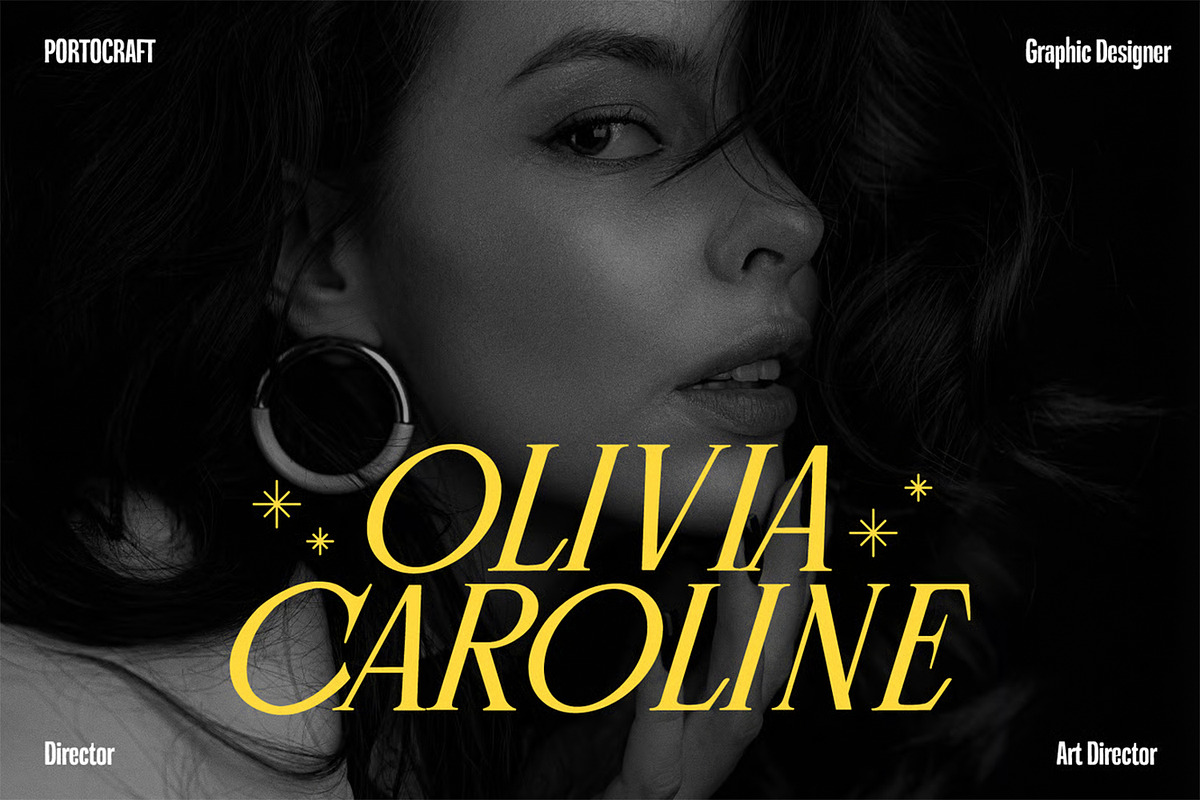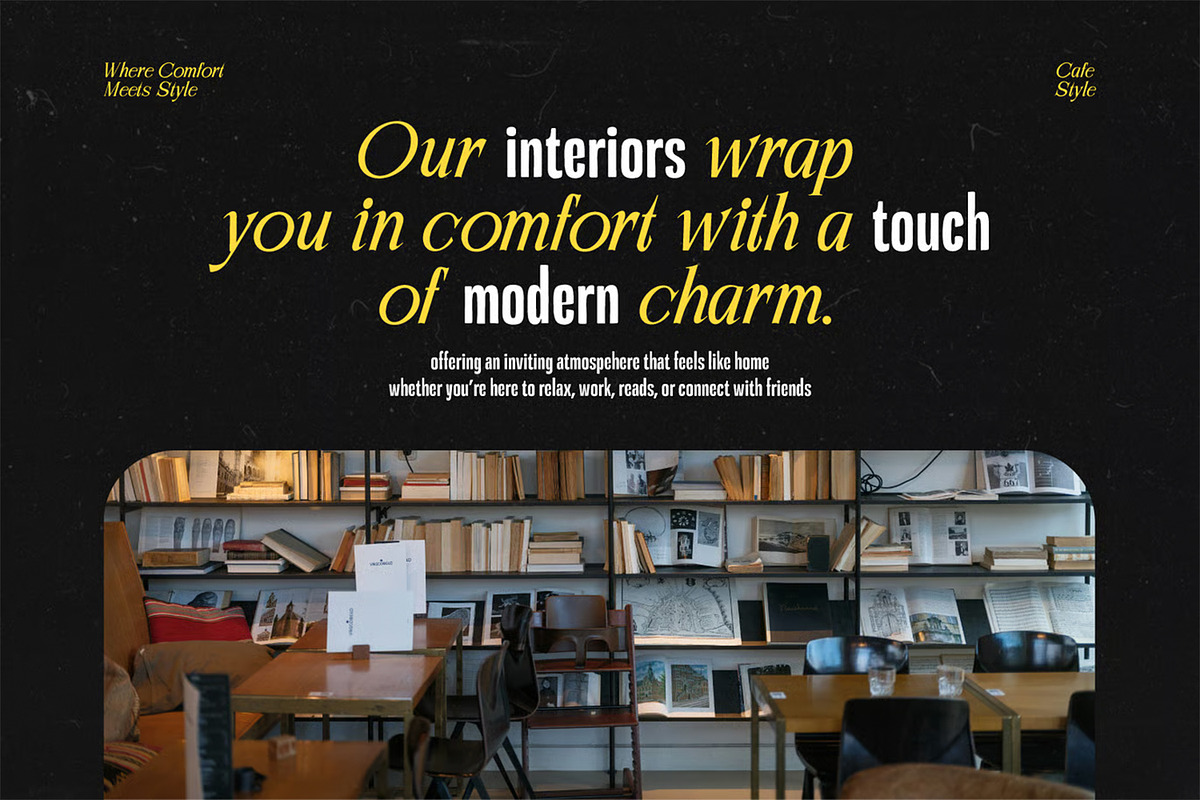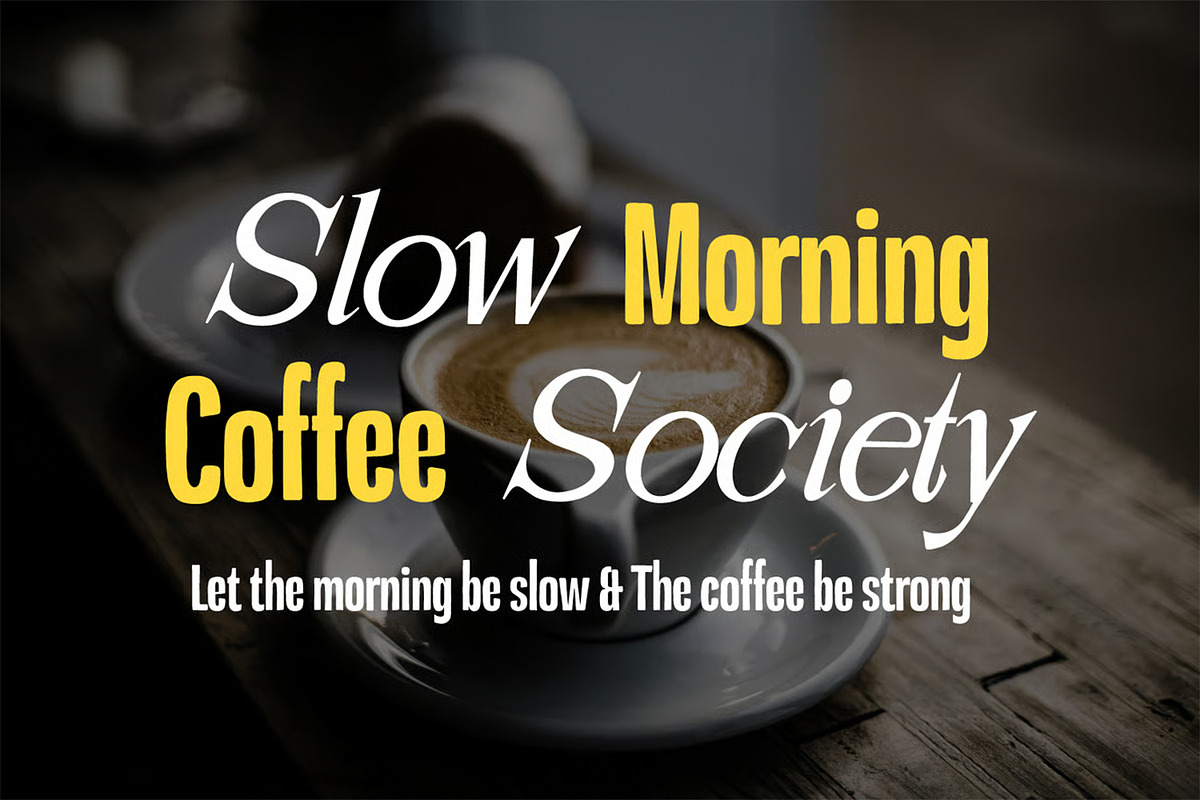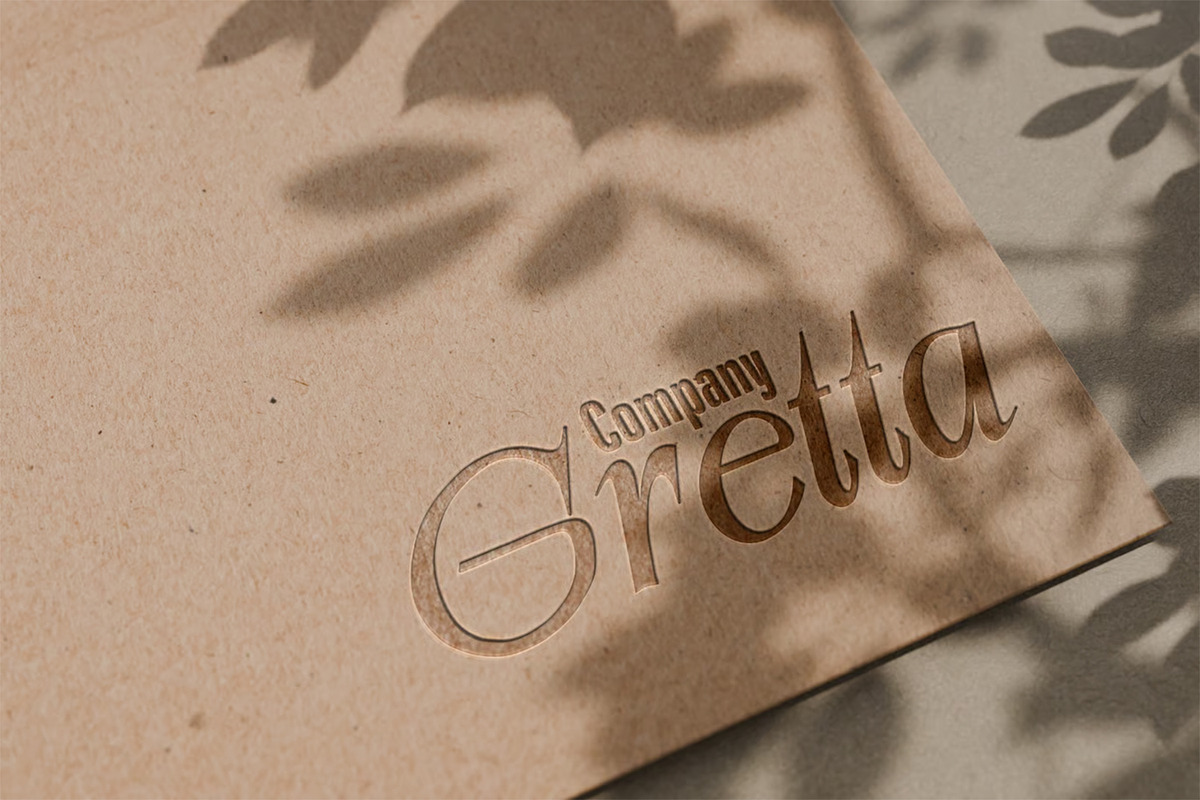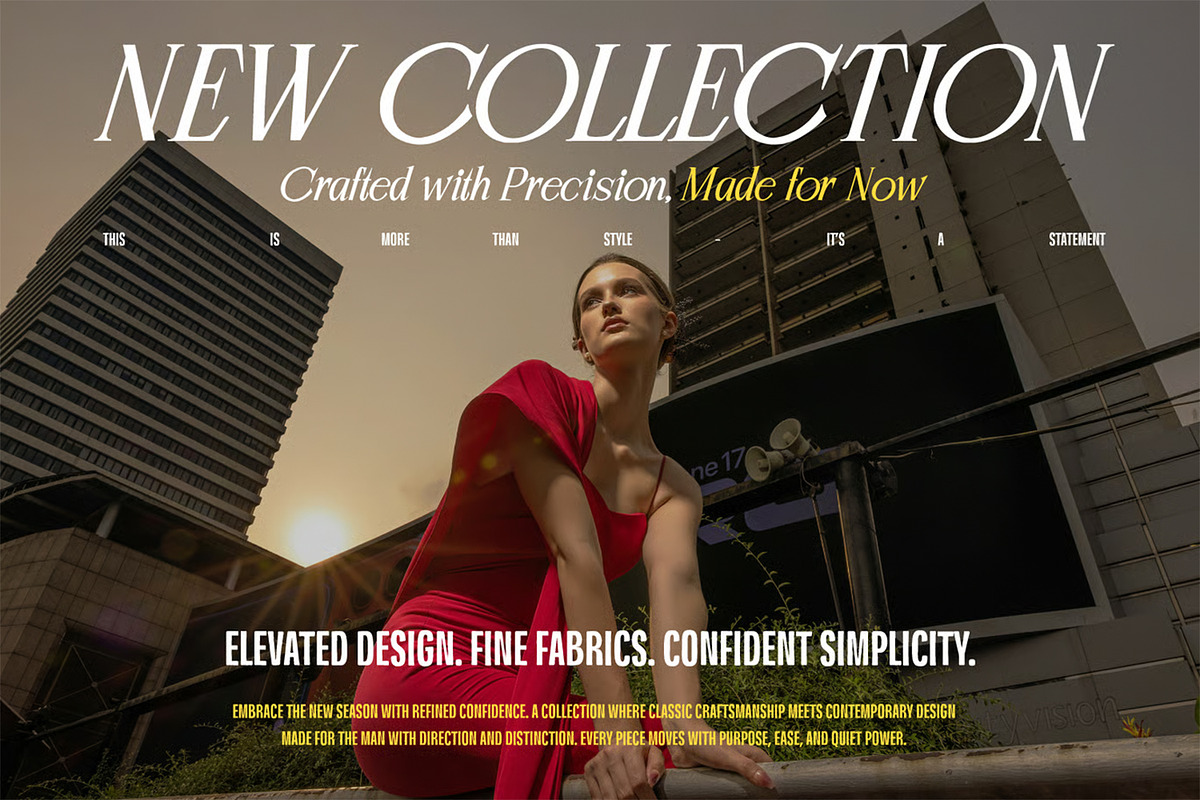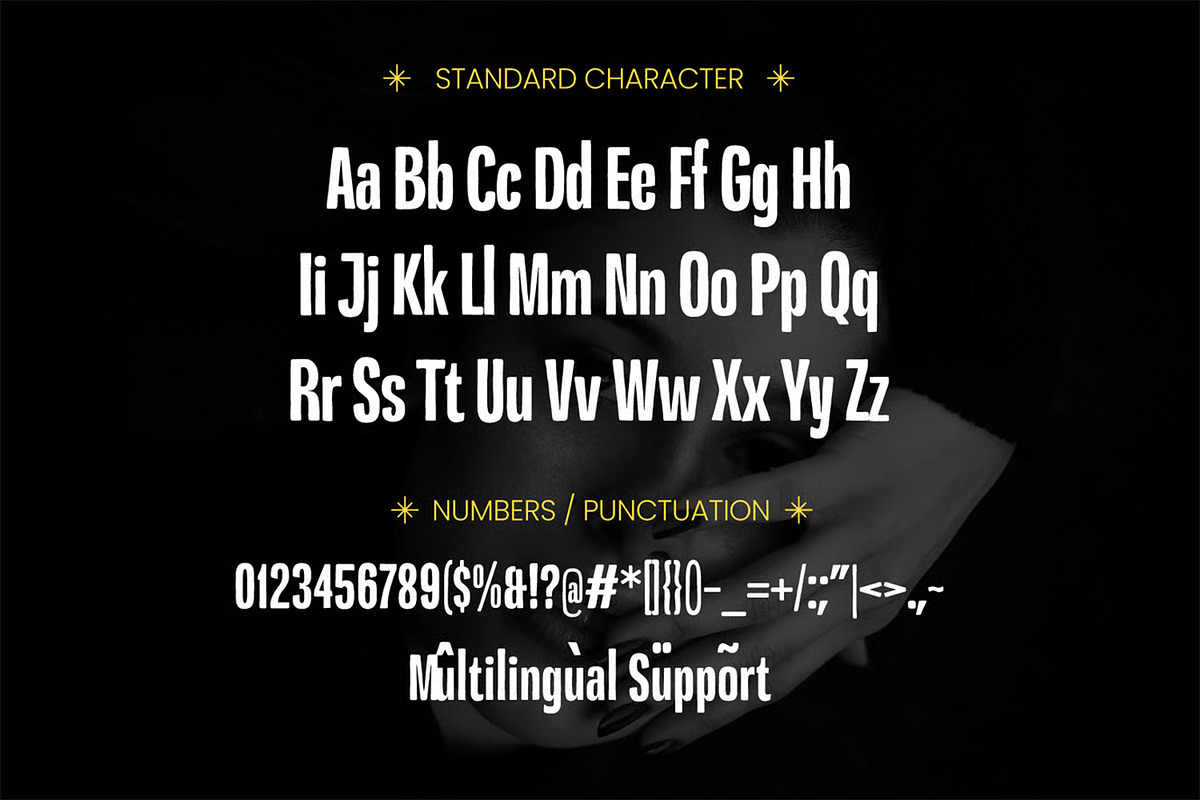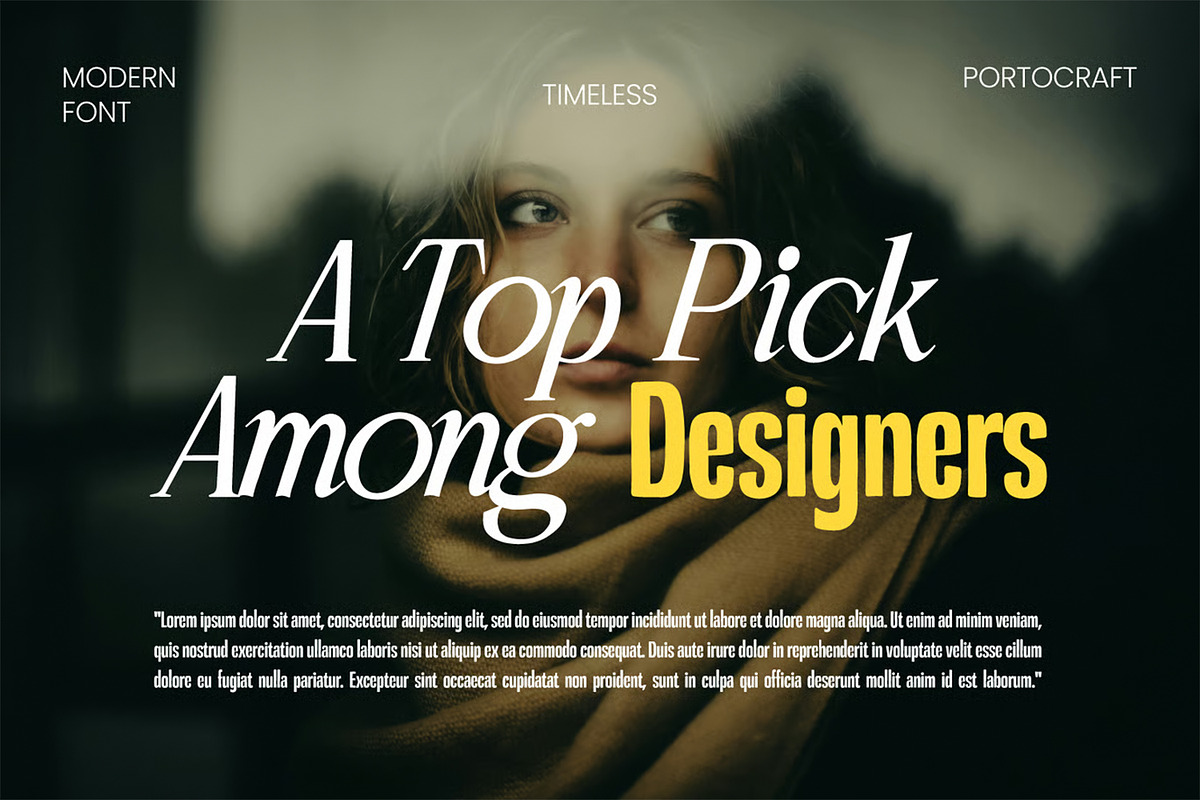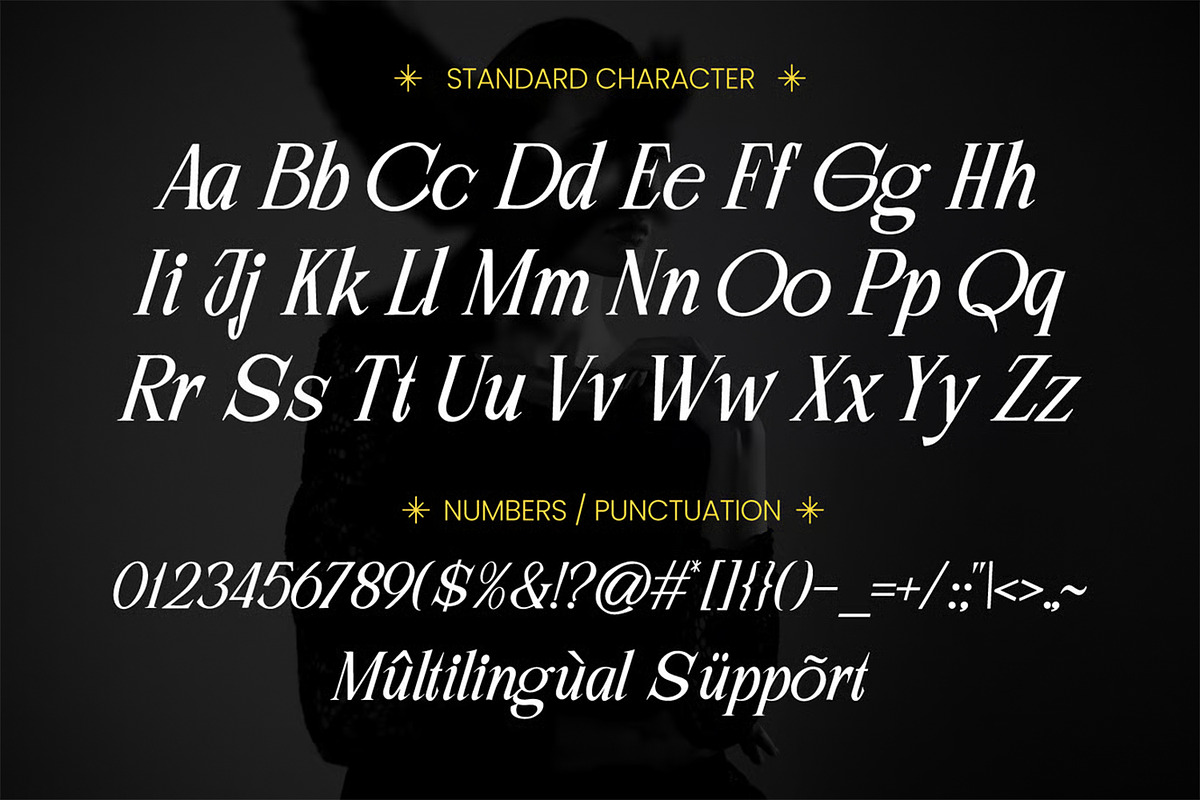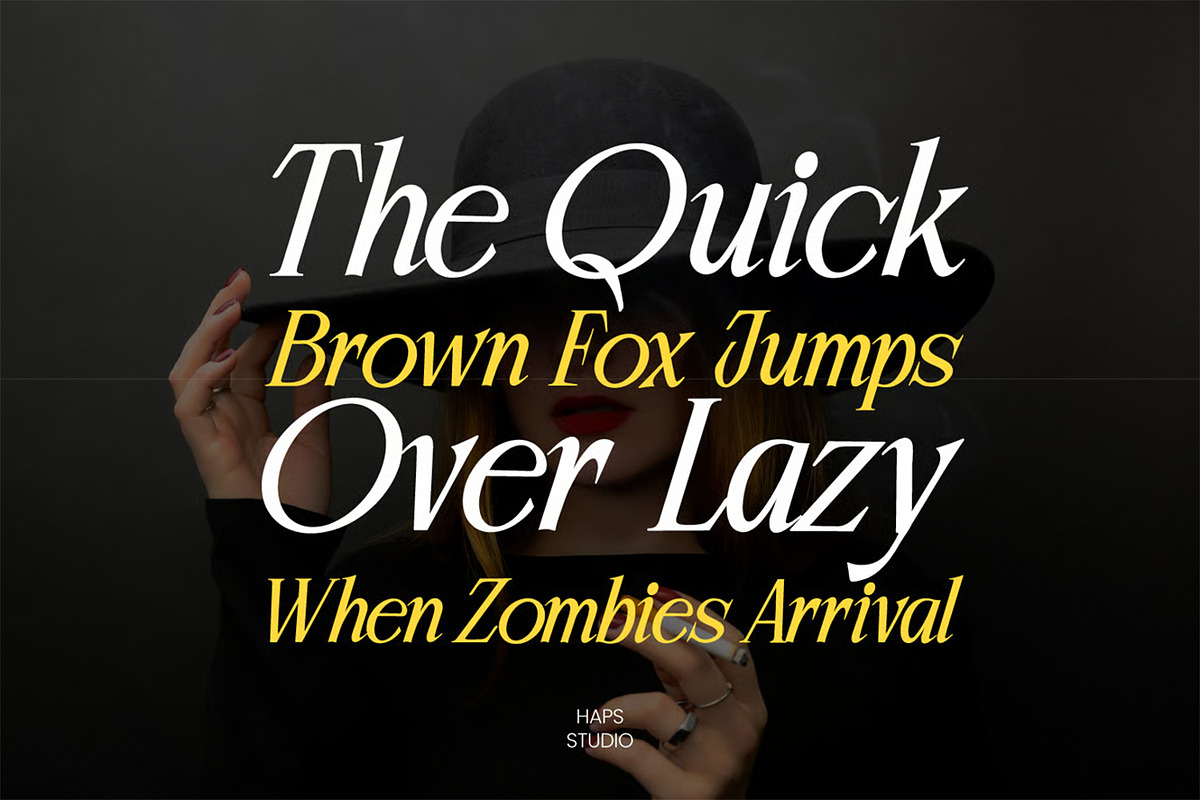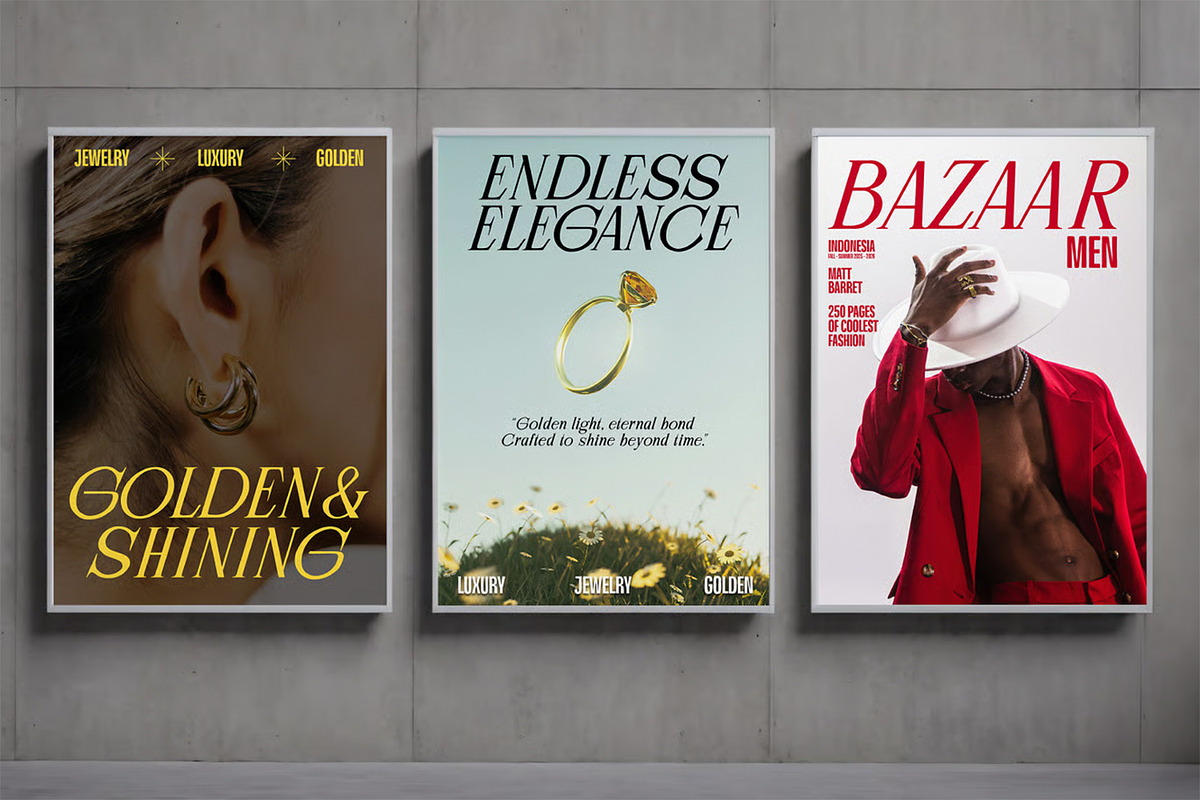
Jardine Rose Font Duo
Discover the perfect harmony of elegance and boldness with Jardine Rose, a sophisticated modern font duo designed by Portocraft. This collection gracefully pairs a fluid, high-contrast serif script with a clean, striking sans-serif display font. Together, they create a stunning typographic balance that is instantly captivating and effortlessly luxurious.
Designed for creators who want to make a statement, Jardine Rose allows you to seamlessly mix and match styles to create beautiful editorial layouts, high-end branding, and eye-catching modern designs.
Best Used For:
Branding & Logo Design: Perfect for fashion houses, luxury boutiques, floral shops, beauty brands, and premium corporate identities.
Editorial & Magazines: Ideal for bold headlines, elegant subheadings, book covers, and striking lookbook layouts.
Packaging & Labels: Adds a romantic and upscale touch to perfume bottles, cosmetics, wine labels, and luxury confectionery packaging.
Weddings & Invitations: Beautifully suited for romantic wedding stationery, greeting cards, RSVPs, and formal event designs.
Social Media & Advertising: Highly engaging for quote graphics, aesthetic Instagram posts, web banners, and digital marketing campaigns.
Complete uppercase and lowercase character sets for both styles
Numbers, punctuation, and standard ligatures
Multilingual support for seamless global design